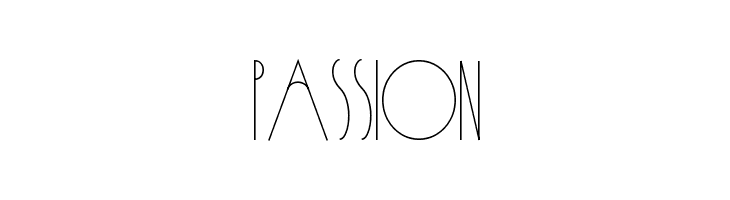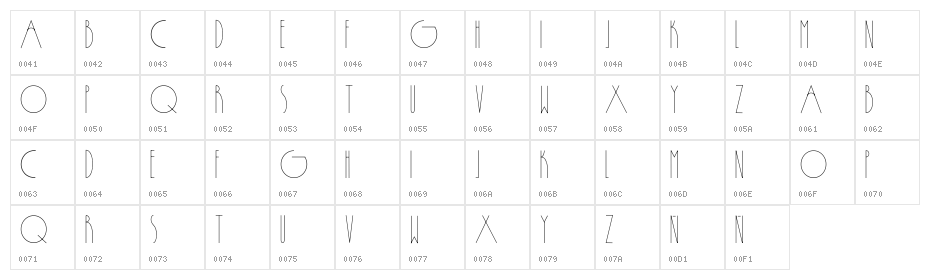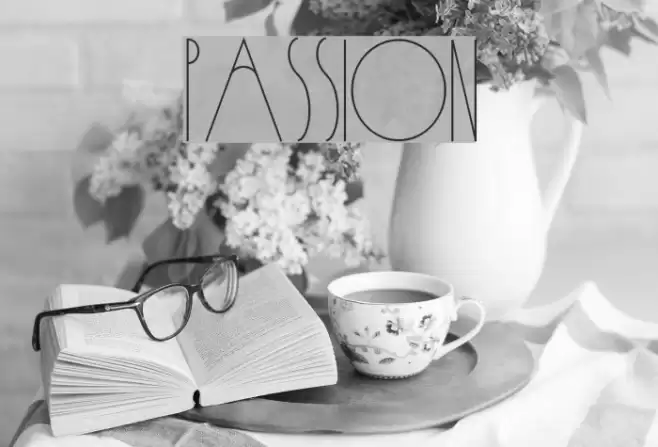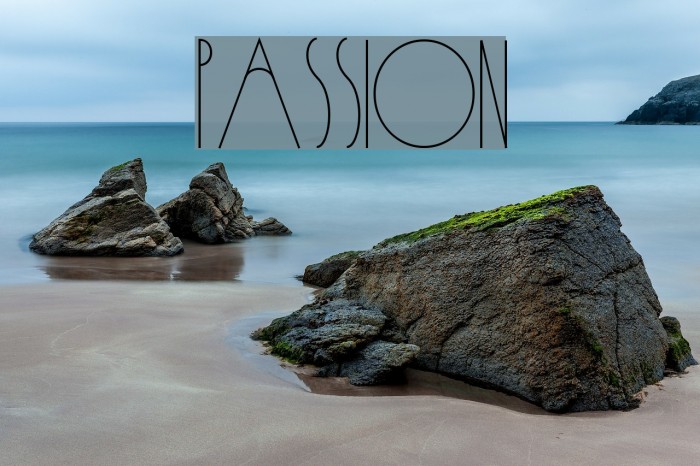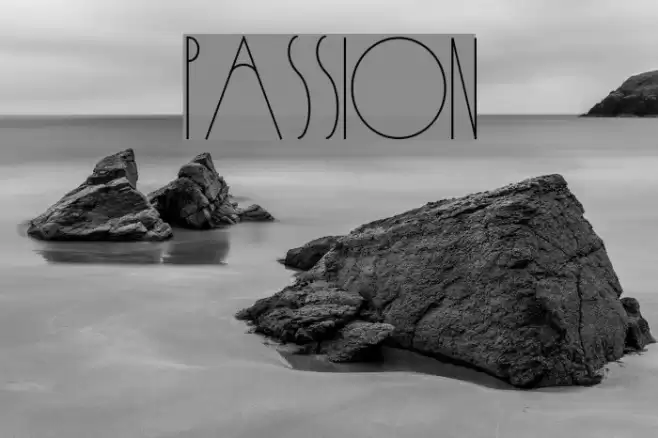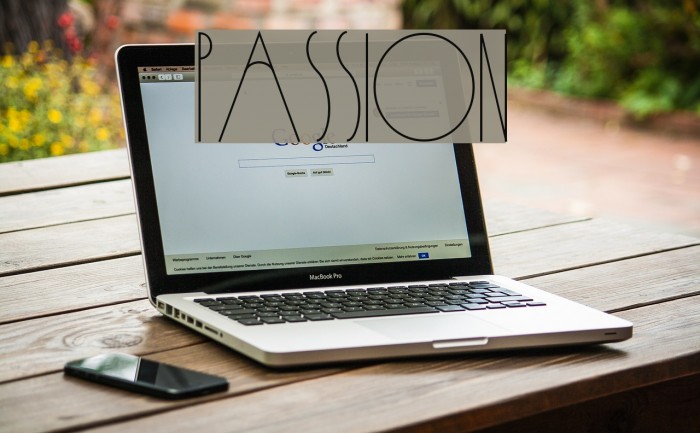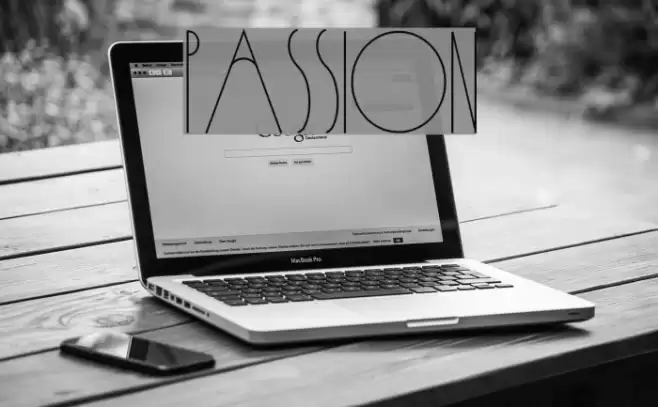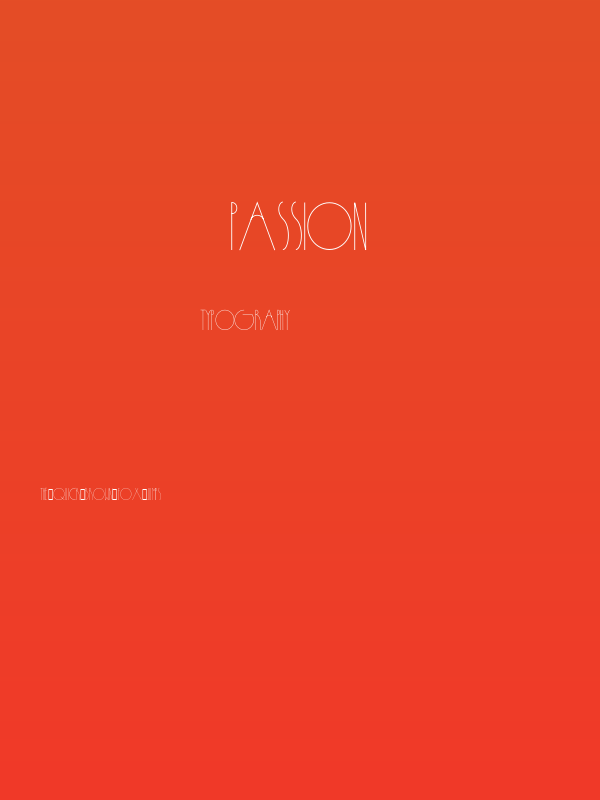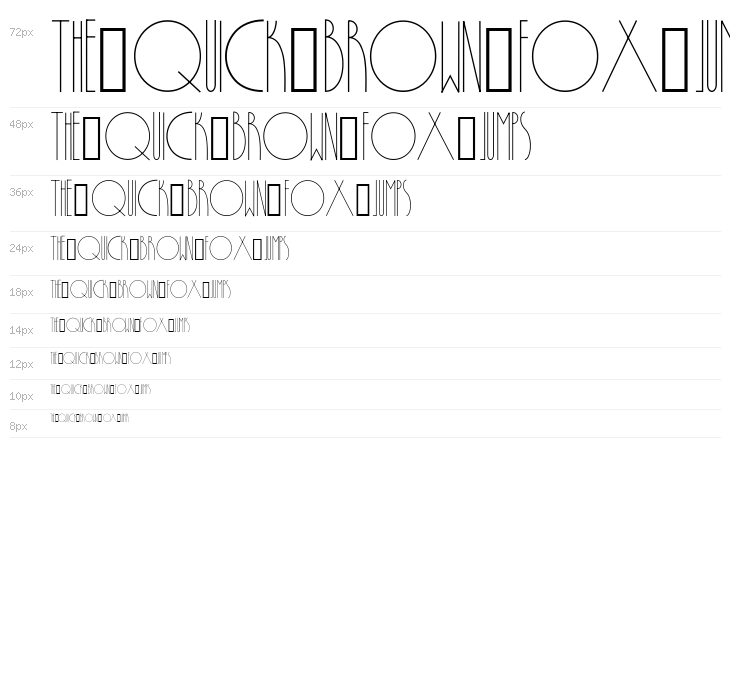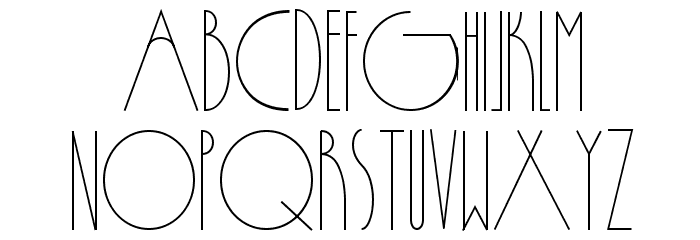
Passion Font
Passion Description
This font features an elegant and elongated design with thin, delicate strokes. The characters are tall and narrow, giving it a sophisticated and modern appearance. The uppercase letters have a distinct geometric quality, while the lowercase letters maintain a consistent style, enhancing readability. The numerals are similarly styled, ensuring uniformity across all characters. This font's unique design is ideal for creating a refined and stylish look, making it suitable for various creative applications.
| Proposed Projects | Ideal for fashion magazines, luxury branding, wedding invitations, and high-end product packaging. |